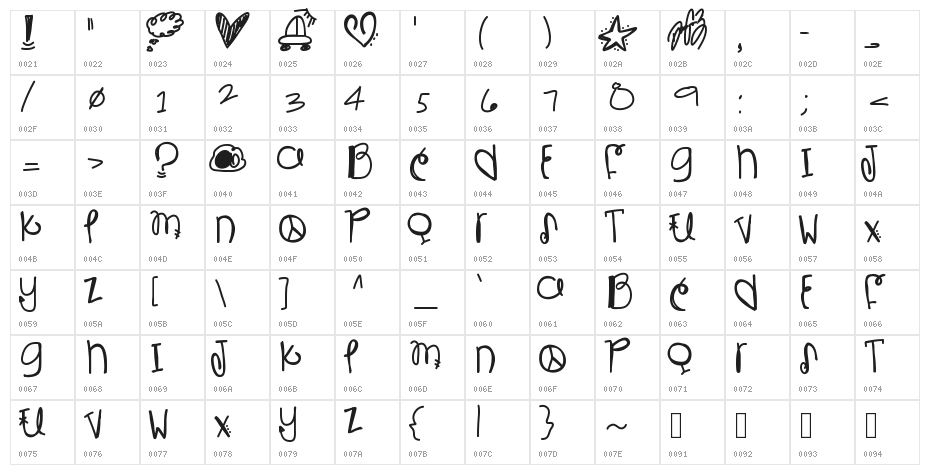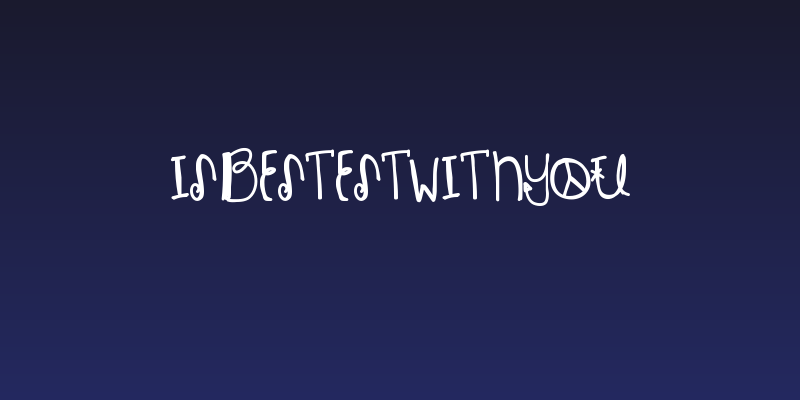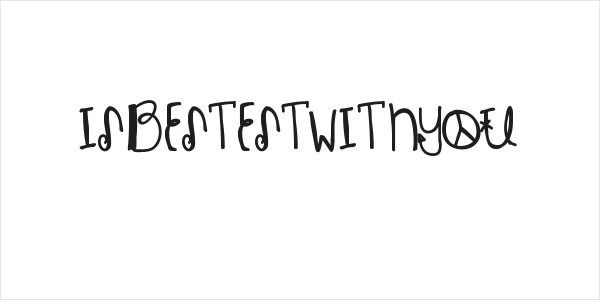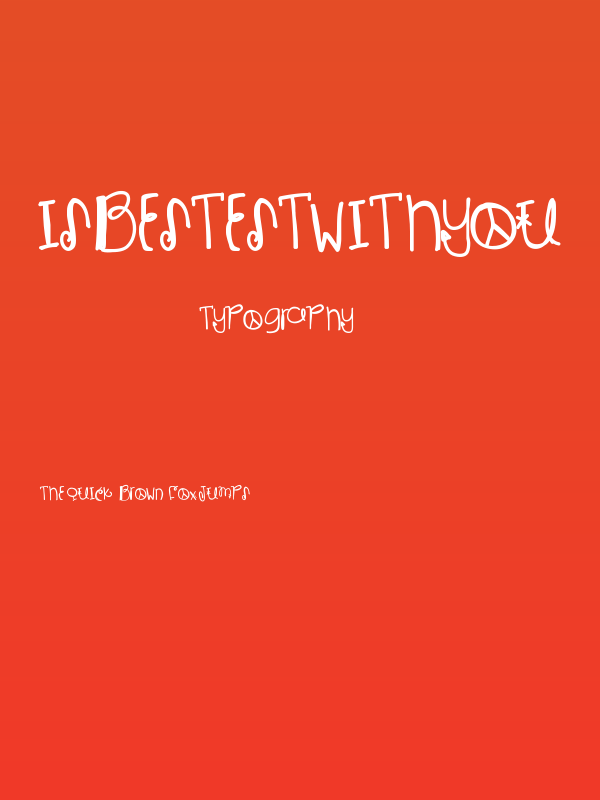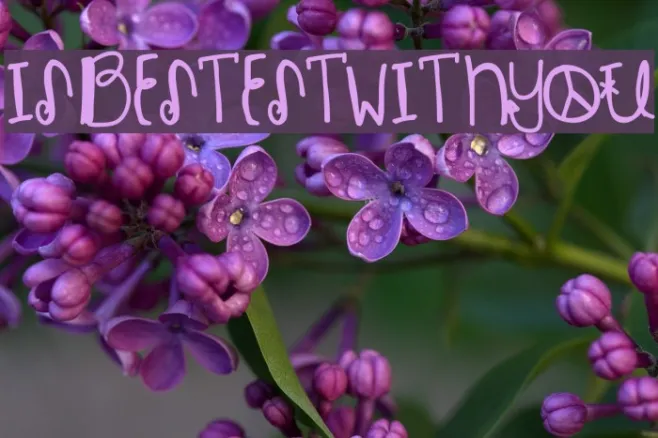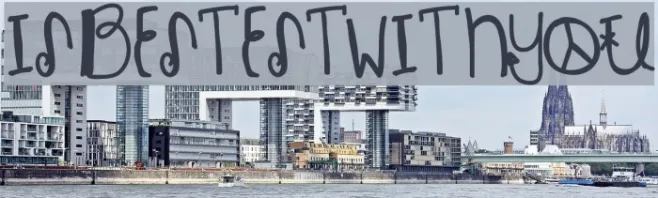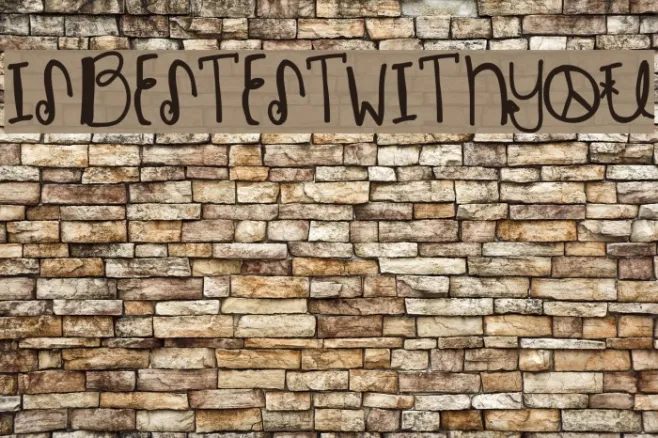
IsBestestWithYou Font
IsBestestWithYou Description
This font features a playful and whimsical design, characterized by its irregular and quirky letterforms. Each character exhibits a unique, hand-drawn quality with varying stroke thickness, giving it a lively and dynamic appearance. The uppercase and lowercase letters share a consistent style, with some letters incorporating unexpected curves and loops. Numbers and special characters maintain the same playful aesthetic, adding to the font's overall charm. This font's distinctive style makes it ideal for projects that require a fun and informal touch.
| Overall Style | Whimsical |
| Proposed Projects | Ideal for children's books, playful branding, greeting cards, and creative posters. |